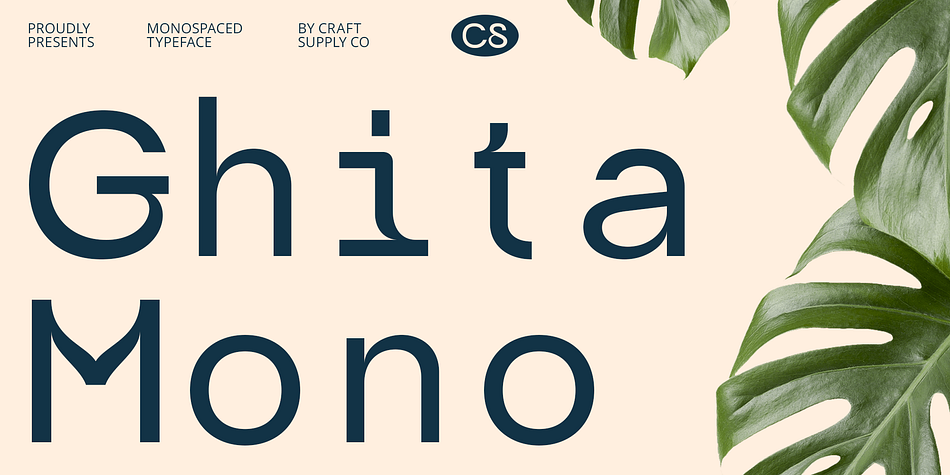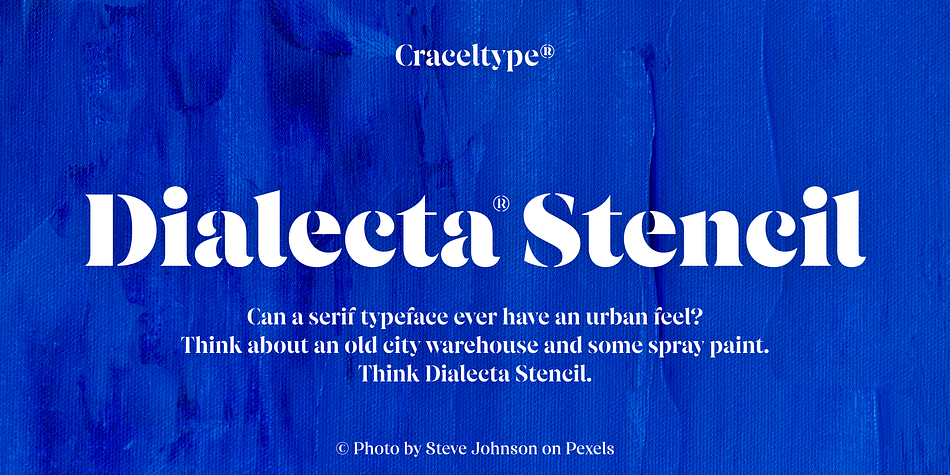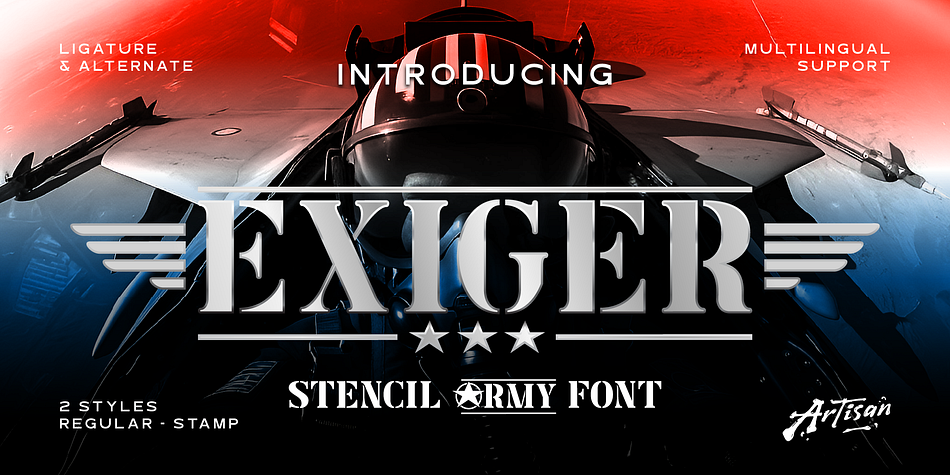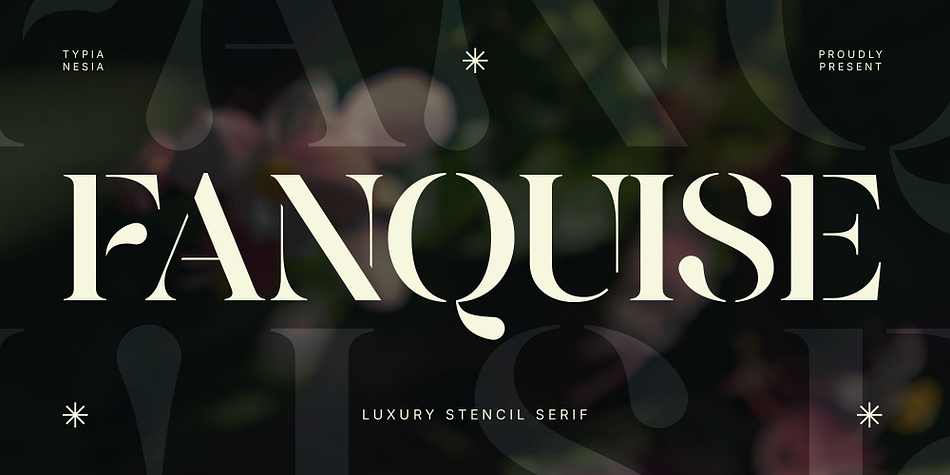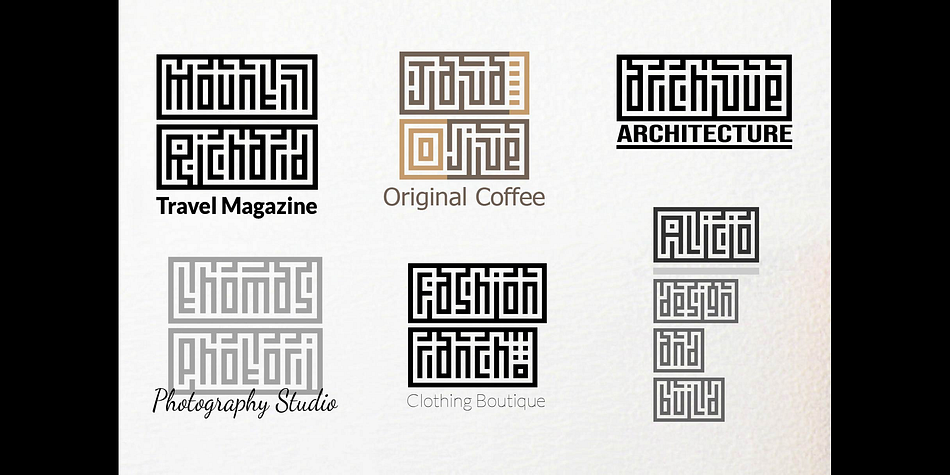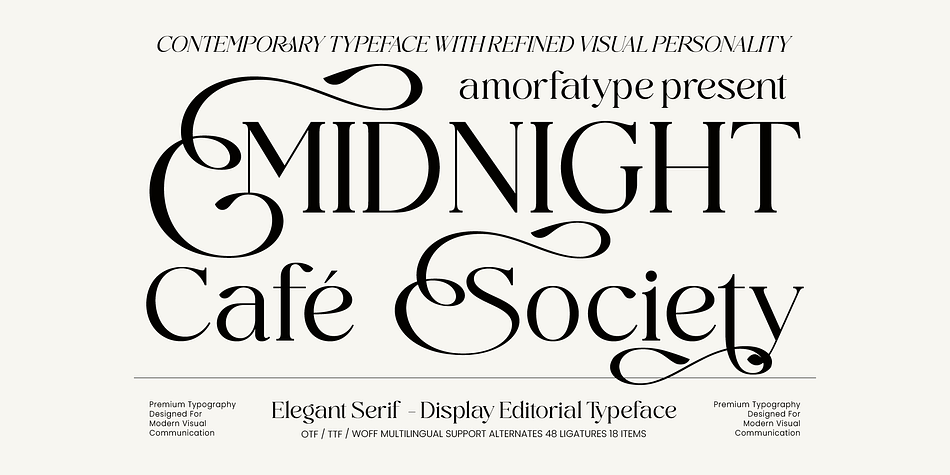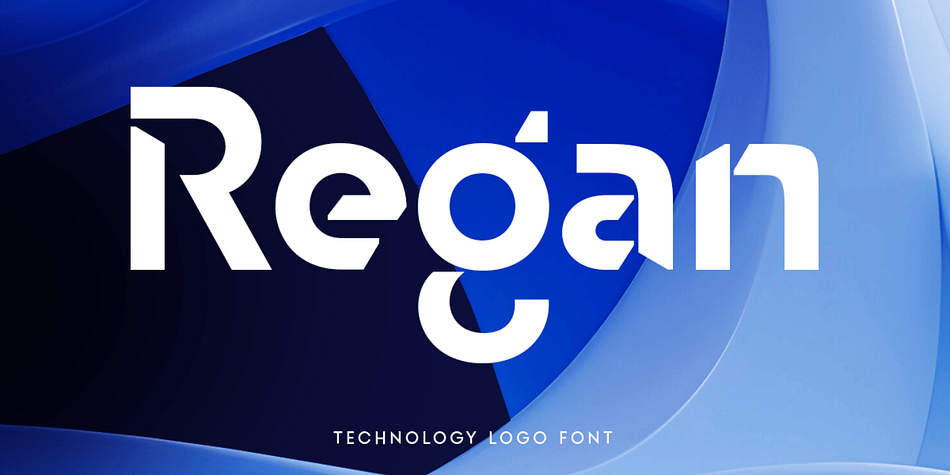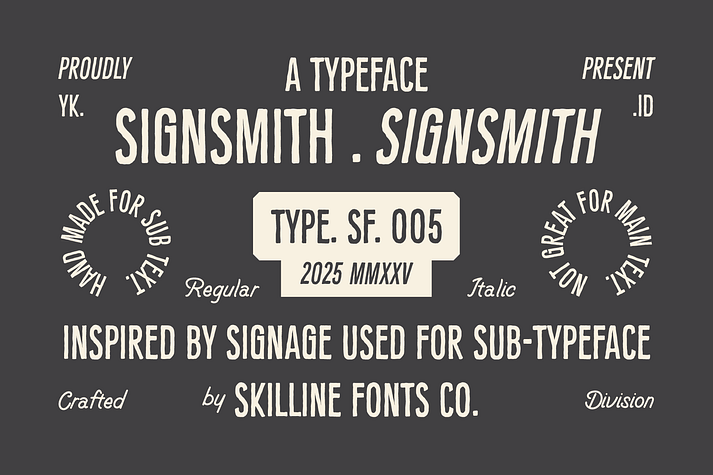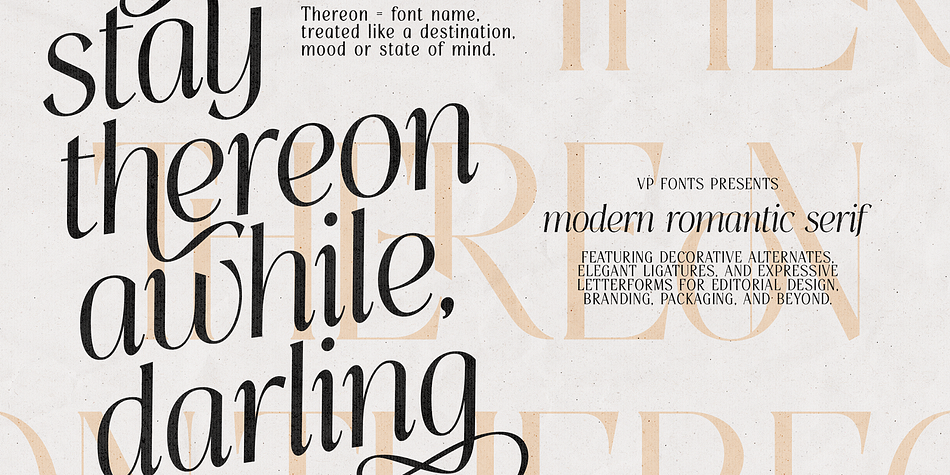
The Stencil typeface style is defined by its unmistakable appearance—a cut-out pattern mimicking letters applied through a physical stencil. This aesthetic immediately evokes feelings of utility, strength, and raw authenticity, making it an invaluable choice for designers looking to add high impact without sacrificing readability. It’s the perfect typographic tool when your brand needs to feel rugged, precise, or technologically advanced. Because stencils inherently suggest process—think military markings, industrial machinery, or old warehouse signage—they pair exceptionally well with themes of exploration, science fiction, and durability. Whether used for bold headlines on packaging, gaming UI elements, or architectural branding, a stencil font adds immediate depth and narrative power to any visual medium, giving your design an authoritative, purposeful edge.
Fanquise
Ideal for luxury branding, Fanquise is a stylish stencil serif. Add refined elegance to logos, posters, and high-fashion editorial designs with its unique cut-out details.
CS Ghita Mono
Use CS Ghita Mono's elegant monospaced structure for clean code blocks, technical layouts, and modern design projects.
Dialecta Stencil
Use Dialecta Stencil for bold, modern headlines or signage that evokes industrial, urban warehouse aesthetics.
Midnight Cafe Society
Midnight Cafe Society is an exquisite serif display typeface perfect for luxury branding. Design sophisticated headlines for fashion editorials, elegant beauty packaging, or high-end visual identities.
Thereon
Thereon: An elegant modern serif perfect for luxury branding, fashion magazines, and high-end packaging design. Use its refined letterforms to convey timeless sophistication.
Exiger
Stencil font Exiger brings bold military authority to branding, game interfaces, and apparel graphics. Use its structured lines for a rugged, industrial aesthetic.
Regan
Regan elevates tech branding with its bold, geometric design. This versatile font is ideal for crafting modern logos, sophisticated app interfaces, and professional digital marketing materials. Its clean lines ensure maximum impact across all software industries requiring a futuristic look.
SFC Signsmith
SFC Signsmith: Condensed, hand-drawn lettering perfect for vintage signage, bold logos, and rustic branding requiring authentic display typography.
Kufication Root
Kufication Root stencil font provides an edgy, distressed aesthetic perfect for branding, posters, impactful titles, or industrial signage designs.